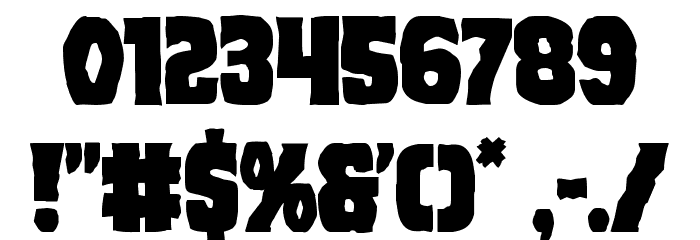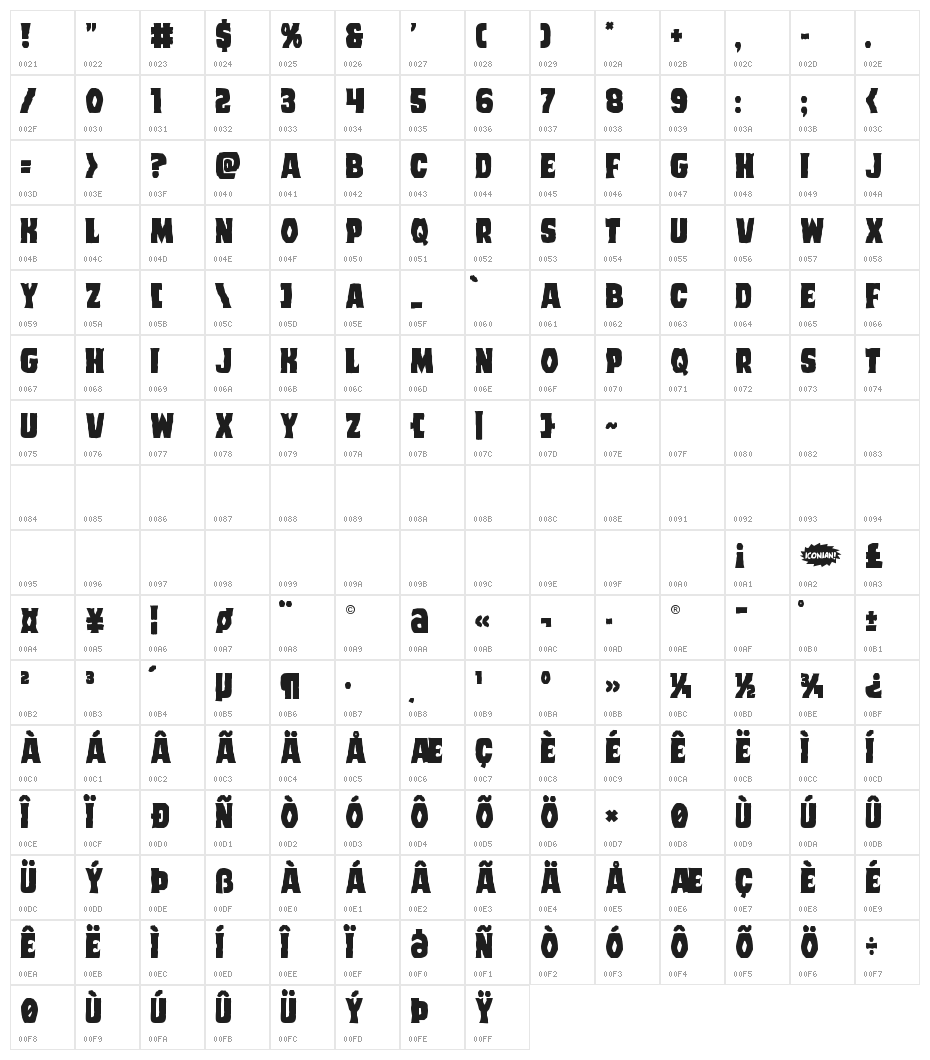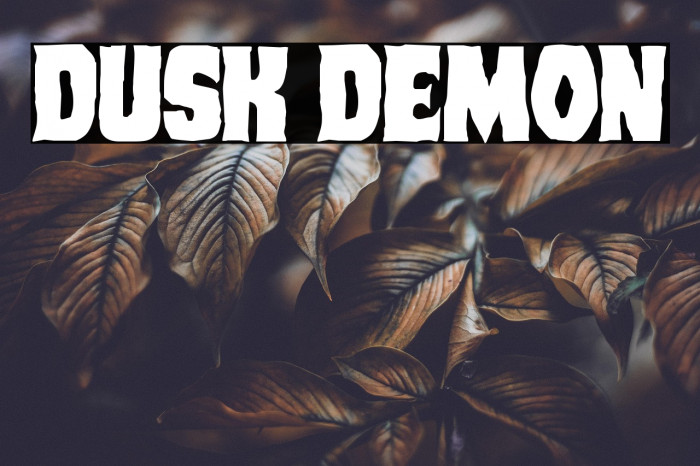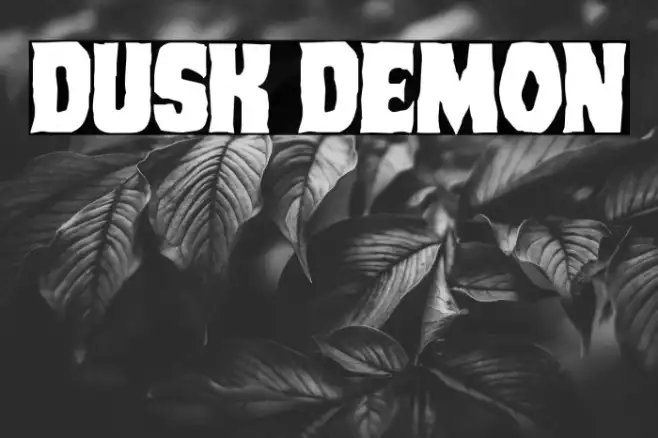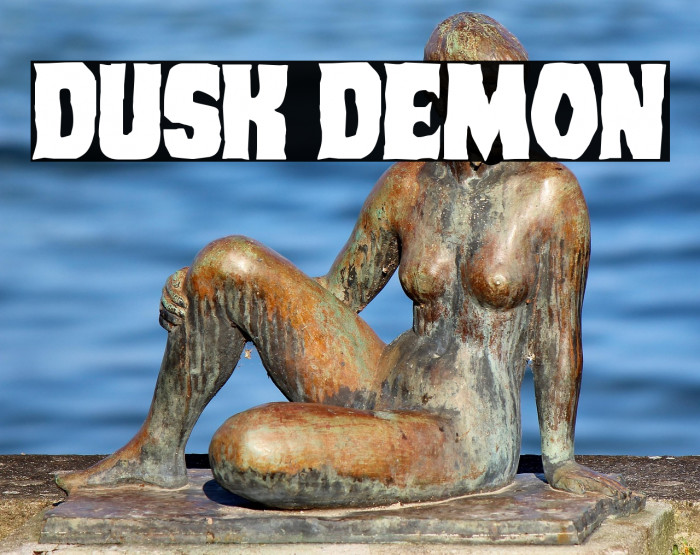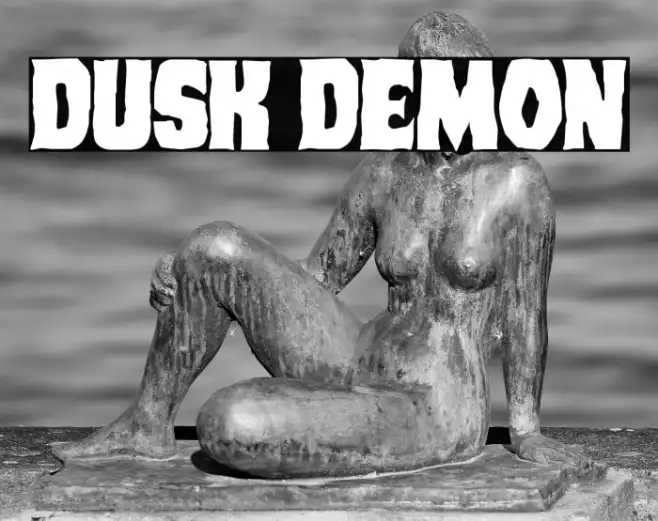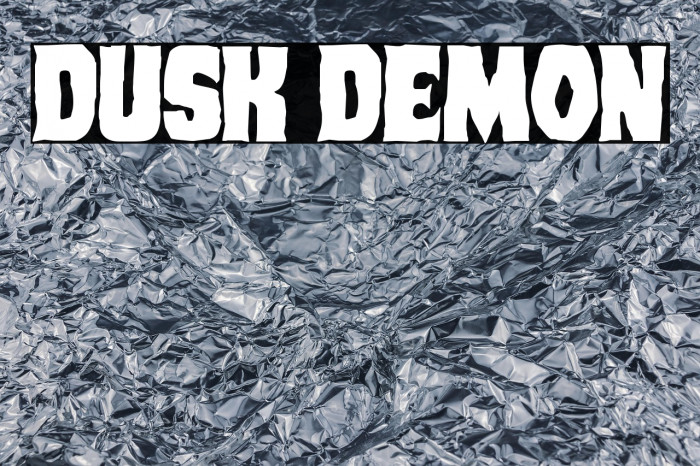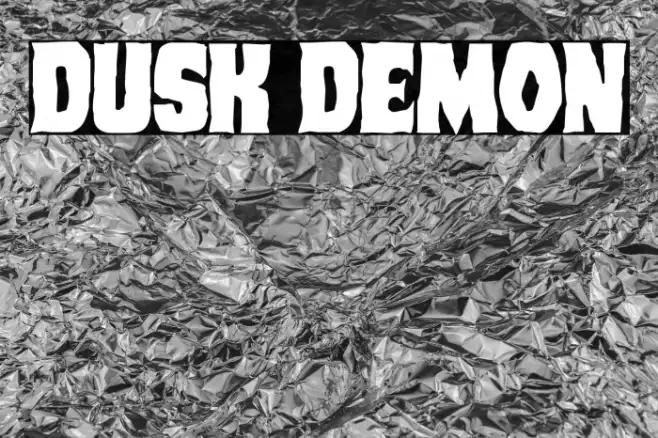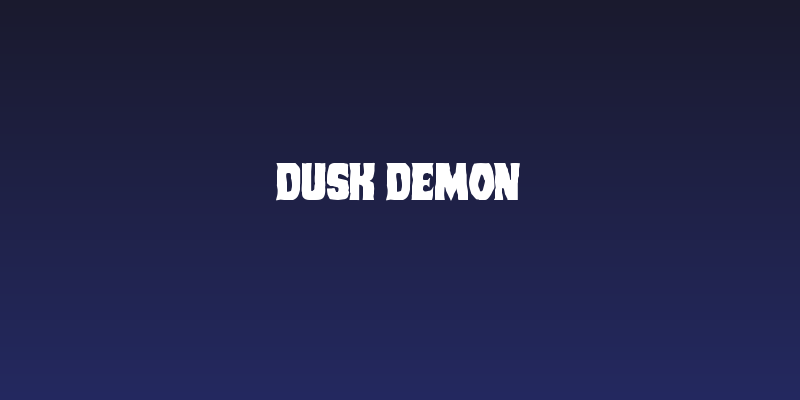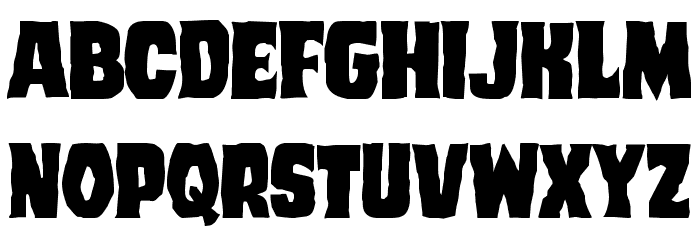
Dusk Demon Font
Dusk Demon Description
This font features a bold and rugged design with a distinctly hand-crafted appearance. The characters are thick and heavy, with uneven edges that give a slightly distressed look. The uppercase and lowercase letters maintain a consistent weight, contributing to a cohesive and impactful visual style. The numbers and special characters follow the same design principles, ensuring uniformity across all glyphs. This font's unique style makes it stand out, suitable for projects that require a strong and attention-grabbing typeface.